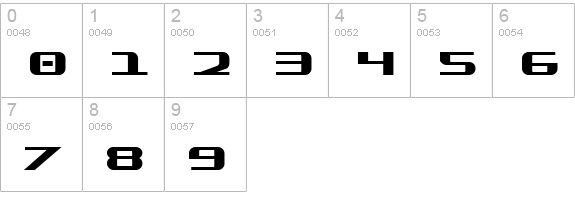
SDF Bold is a strong, high-contrast variant in the SDF typeface family \xE2\x80\x94 well suited to headlines, attention-grabbing titles, and strong calls-to-action.
SDF Bold font is a modern and stylish typeface that exudes confidence and sophistication. Its bold and sleek design makes it perfect for headlines, titles, and branding materials. The sharp edges and clean lines of SDF Bold give it a strong and powerful presence, making it stand out in any project. What's even better is that SDF Bold font is available for free download at FontsMarket.com. This means you can easily access this versatile and eye-catching font to elevate your designs without any cost. Don't miss out on the opportunity to enhance your projects with the contemporary and impactful SDF Bold font - download it today and make a statement with your typography!